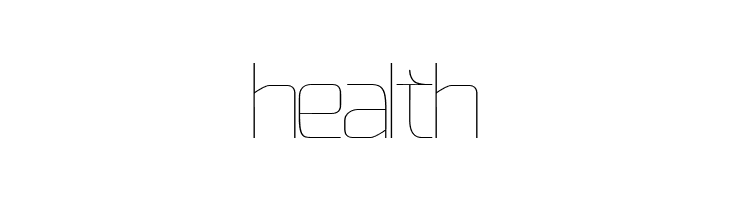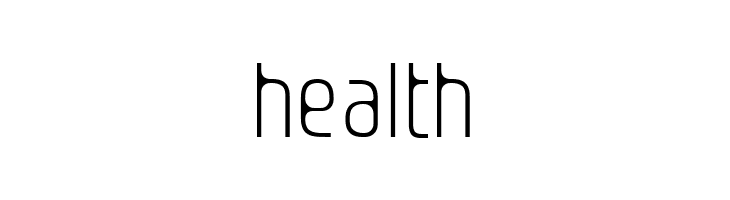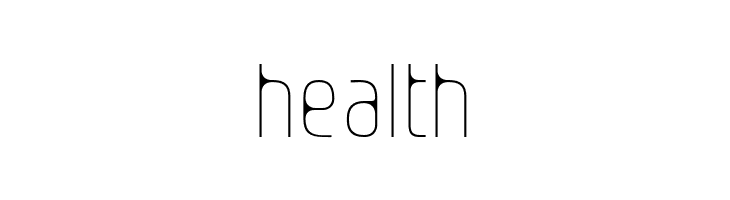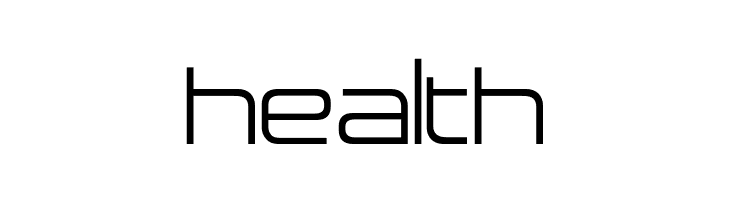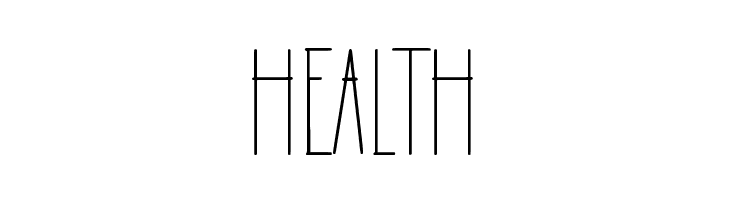
A clean, minimalist font with thin lines and consistent spacing for modern elegance.
A sleek, ultra-thin font with a modern, minimalist design and geometric structure.
A sleek, ultra-light sans-serif font with a modern and minimalist design.
A sleek, modern font with thin, elegant lines and a minimalist design.
A sleek, modern sans-serif font with a geometric and minimalist design.
A sleek, modern font with clean, geometric lines and a minimalist aesthetic.
( Fonts by creatype designer )
Playful handwritten-style font with a casual appearance.
( Fonts by Scratchones )
Playful handwritten font with a casual style.
( Fonts by Andi Moz )
Playful handwritten font with rounded edges.
( Fonts by Qwrtype Foundry )
Tall, narrow, and minimalist font.